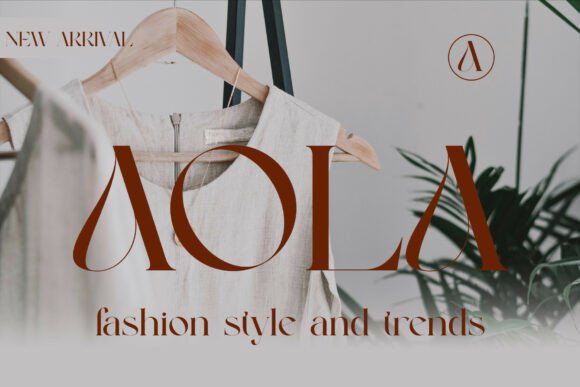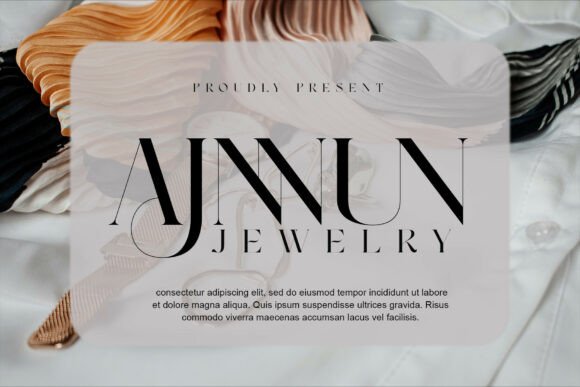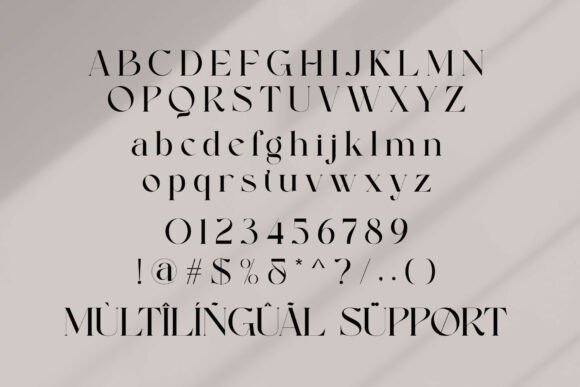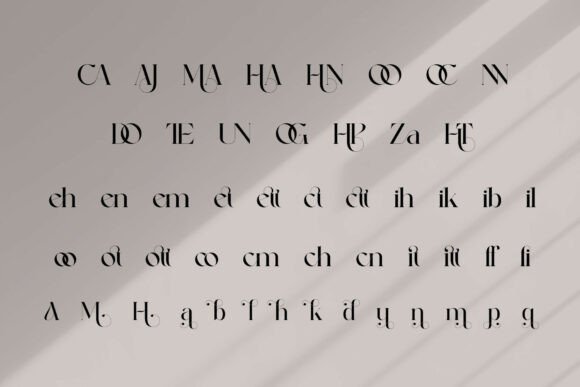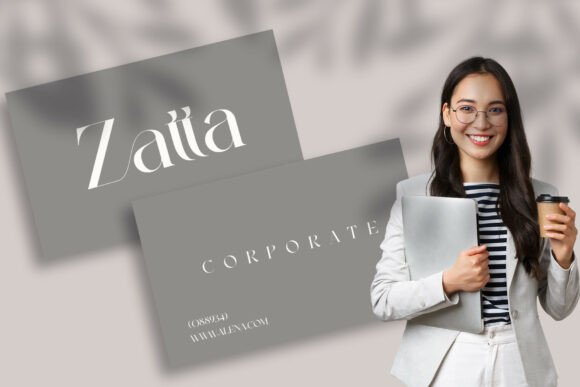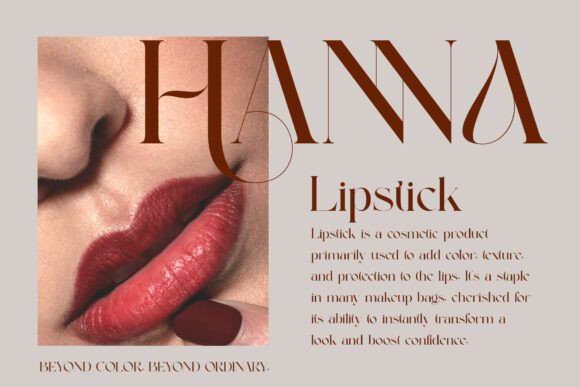
Introducing Gabule Font: Elevate Your Designs with Elegance and Style
In the world of typography, a font can make all the difference in how a message is perceived. For designers and crafters looking for a typeface that exudes sophistication and modernity, Gabule Font is an exceptional choice. This sleek and stylish modern typeface seamlessly blends elegance with contemporary flair, making it perfect for a wide range of design applications.
The Essence of Gabule Font
Gabule is more than just a font; it’s a design statement. Characterized by smooth curves and sophisticated letterforms, Gabule brings a fresh yet timeless feel to any project it touches. Its refined aesthetic, coupled with a hint of playfulness, makes it incredibly versatile for both formal and creative endeavors. Whether you’re crafting a minimalist brand identity or an eye-catching headline, Gabule delivers a bold statement with elegance and style.
Key Features of Gabule Font
- Elegant and Fashionable Design: Gabule’s design is centered around elegance and fashion. Its sleek lines and curves make it perfect for designs that require a touch of sophistication.
- Smooth, Modern Curves with a Stylish Edge: The font features smooth, modern curves that give it a stylish edge, making it stand out in any design.
- Ideal for Various Design Projects: Gabule is ideal for logos, branding, titles, and invitations, making it a versatile choice for designers.
- Multilingual Support: The font supports multiple languages, ensuring that it can be used in a wide range of projects across different regions.
- Multilingual Support: The fonts include multilingual support, making them suitable for global design projects.
Use Cases for Gabule Font
Gabule’s versatility makes it suitable for a variety of design applications:
- Branding: Create a lasting impression with Gabule’s elegant and modern design, perfect for luxury brands and companies looking to establish a sophisticated identity.
- Fashion Editorials: Add a touch of glamour and style to your fashion editorials with Gabule’s sleek and stylish typography.
- Luxury Packaging: Elevate your luxury packaging designs with Gabule’s refined aesthetic, ensuring your products stand out on the shelves.
- Social Media Graphics: Make your social media graphics pop with Gabule’s modern and elegant design, perfect for engaging your audience.
- High-End Logos: Create a bold and sophisticated logo for your high-end brand or business with Gabule’s stylish and contemporary typography.
Why Choose Gabule Font?
Choosing Gabule Font for your design projects offers several advantages:
- Unique and Memorable: Gabule’s unique design ensures that your projects stand out and are memorable.
- Versatile: The font’s versatility makes it suitable for a wide range of design applications, from formal to creative projects.
- Elegant and Modern: Gabule’s elegant and modern design ensures that your projects look sophisticated and up-to-date.
Gabule Font is an exceptional choice for designers and crafters looking to elevate their designs with elegance and style. Its sleek and stylish modern typeface, smooth curves, and sophisticated letterforms make it perfect for a wide range of design applications. With its versatile design, multilingual support, and easy-to-use format, Gabule is an invaluable addition to any designer’s toolkit. Whether you’re creating a brand identity, fashion editorial, luxury packaging, or social media graphics, Gabule Font is sure to deliver a bold statement with elegance and style.